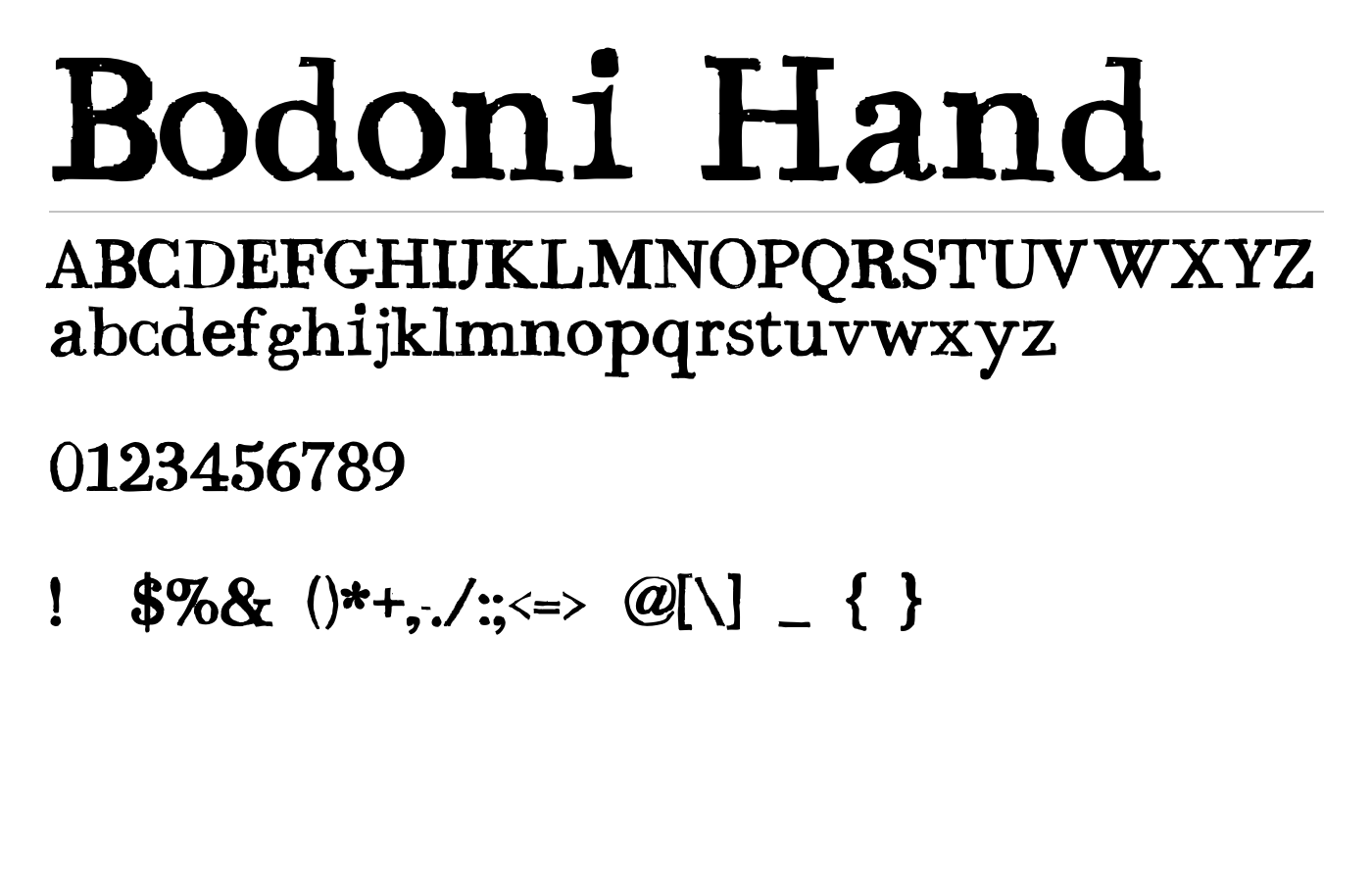
Bodoni Hand is a unique serif font that combines the classic elegance of traditional Bodoni with a handcrafted, textured feel. Its medium weight and slightly irregular stroke edges give it a warm, vintage character, making it perfect for designs that seek a blend of sophistication and a personal, approachable touch. This font works well for branding, headlines, and editorial projects that want to convey both style and authenticity.
Bodoni Hand Font
About Bodoni Hand Font